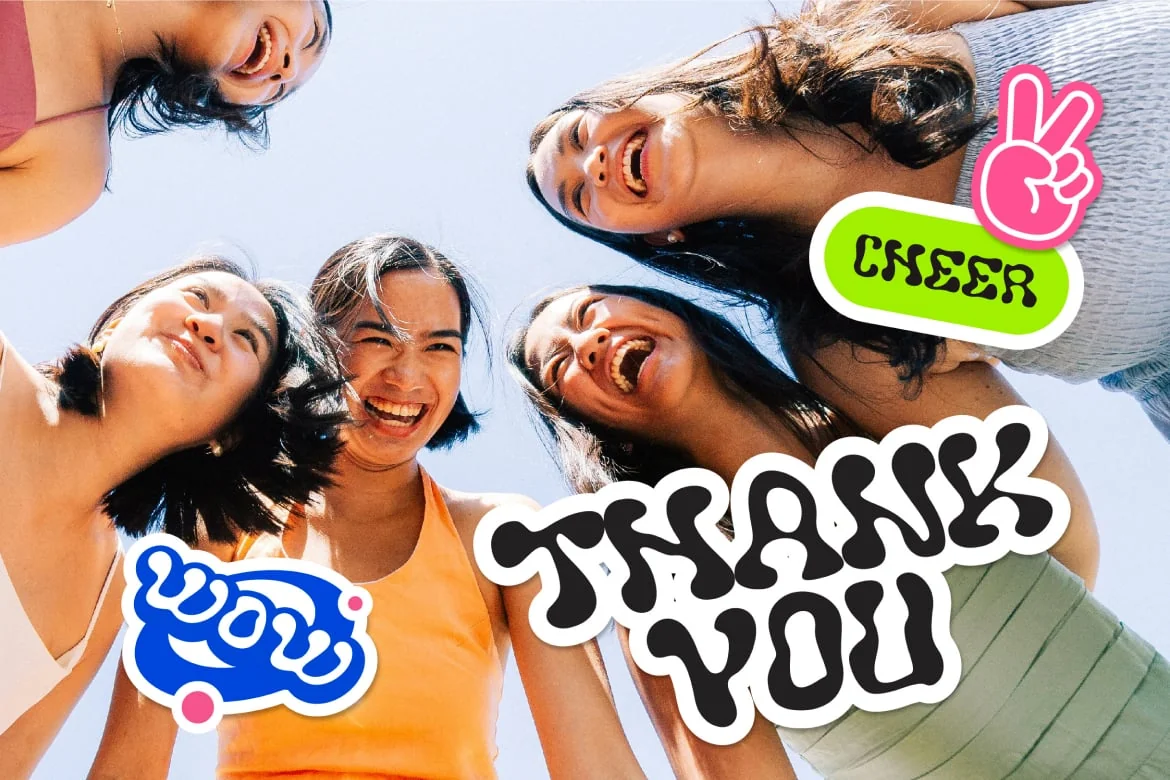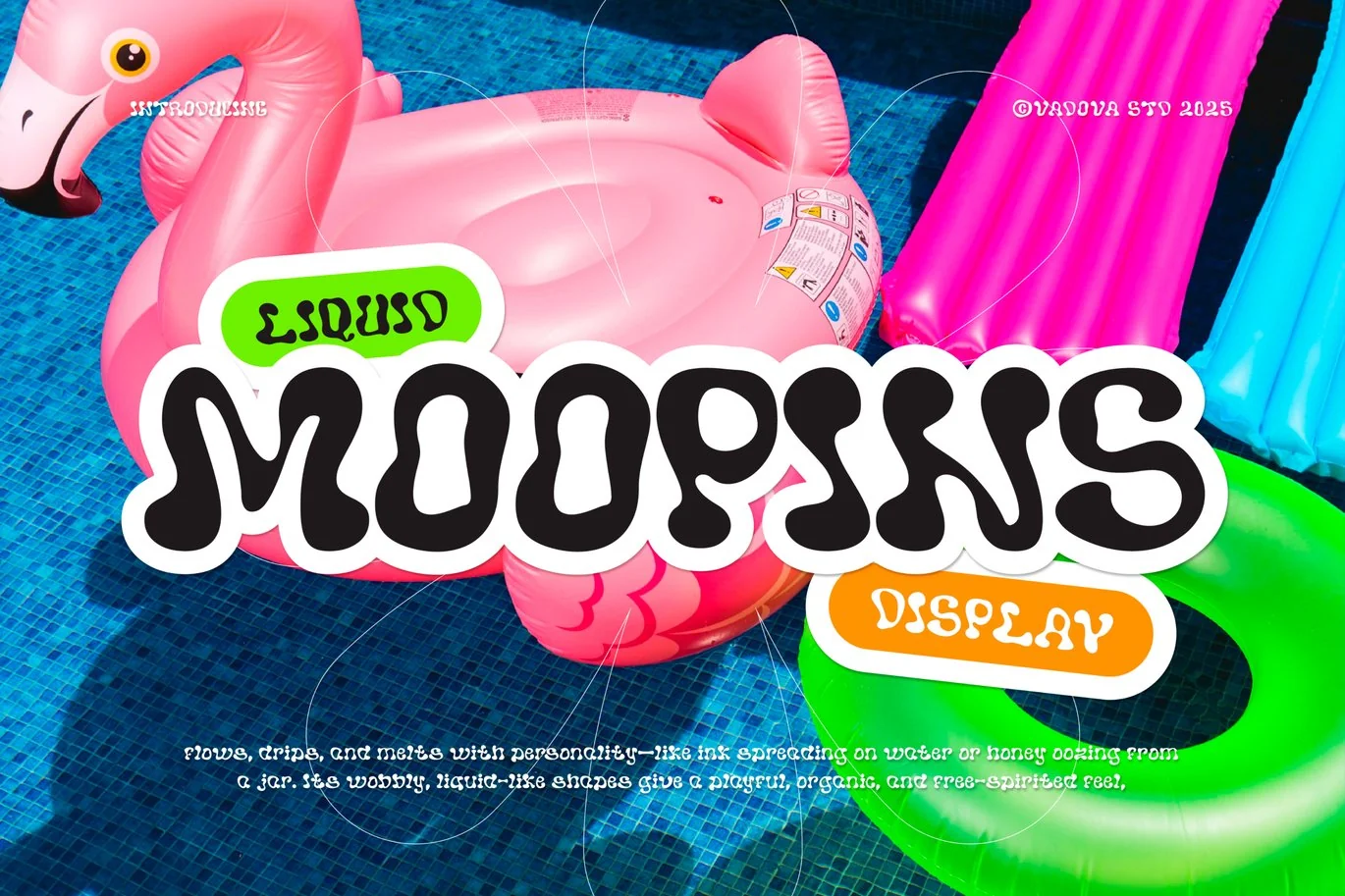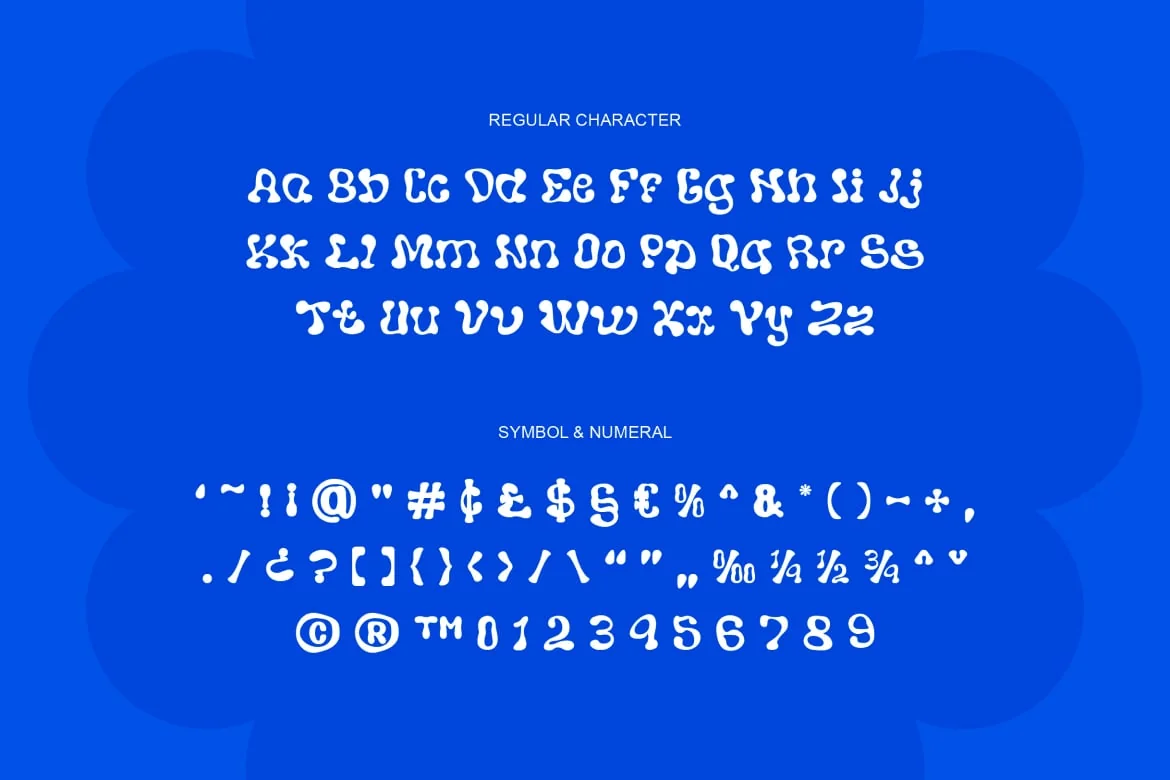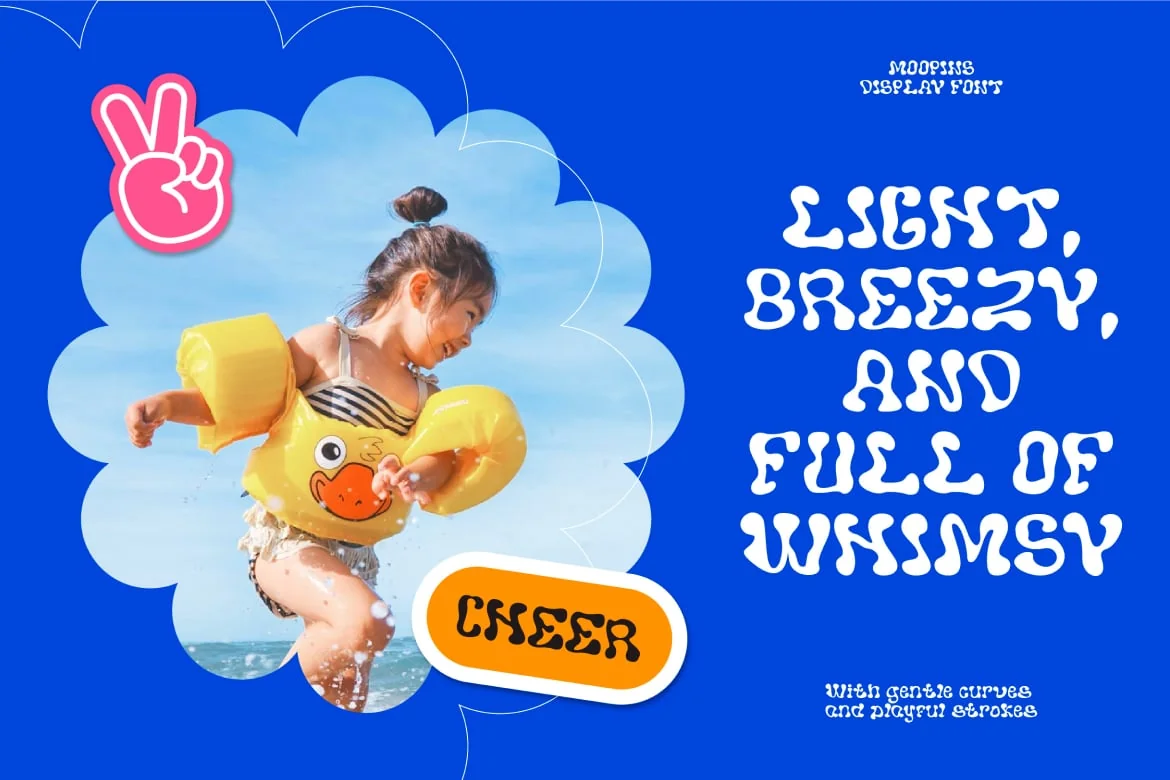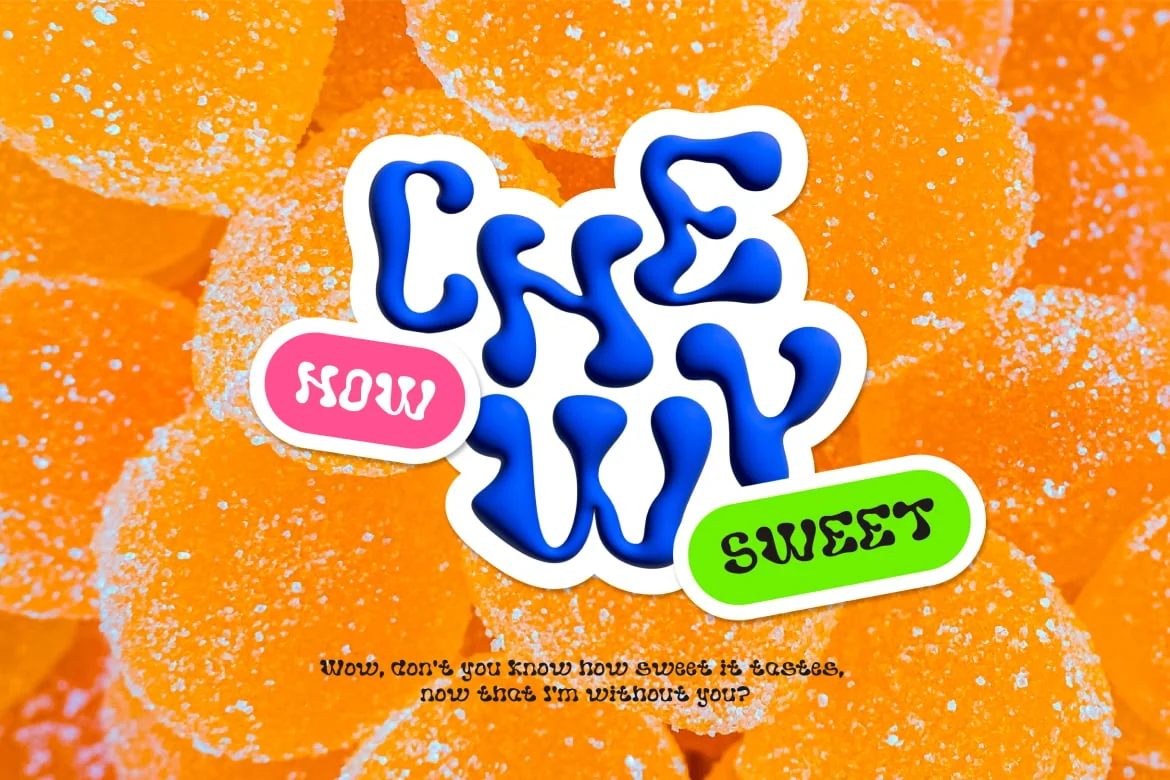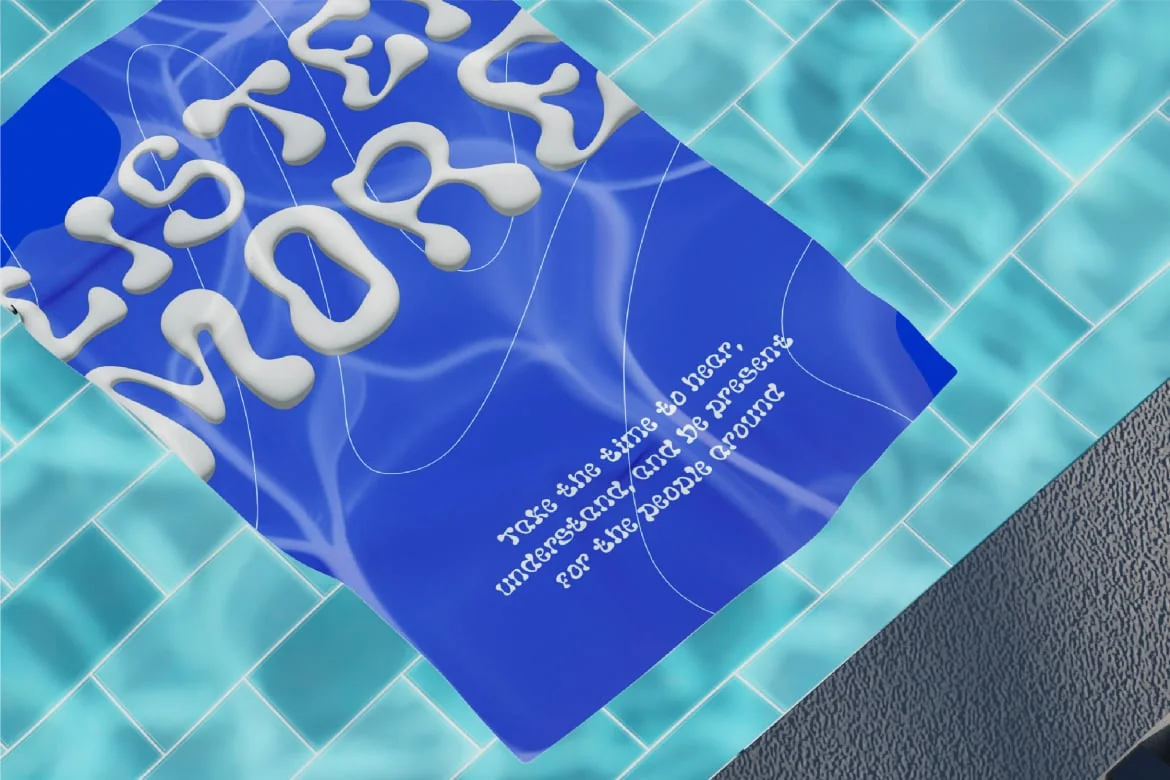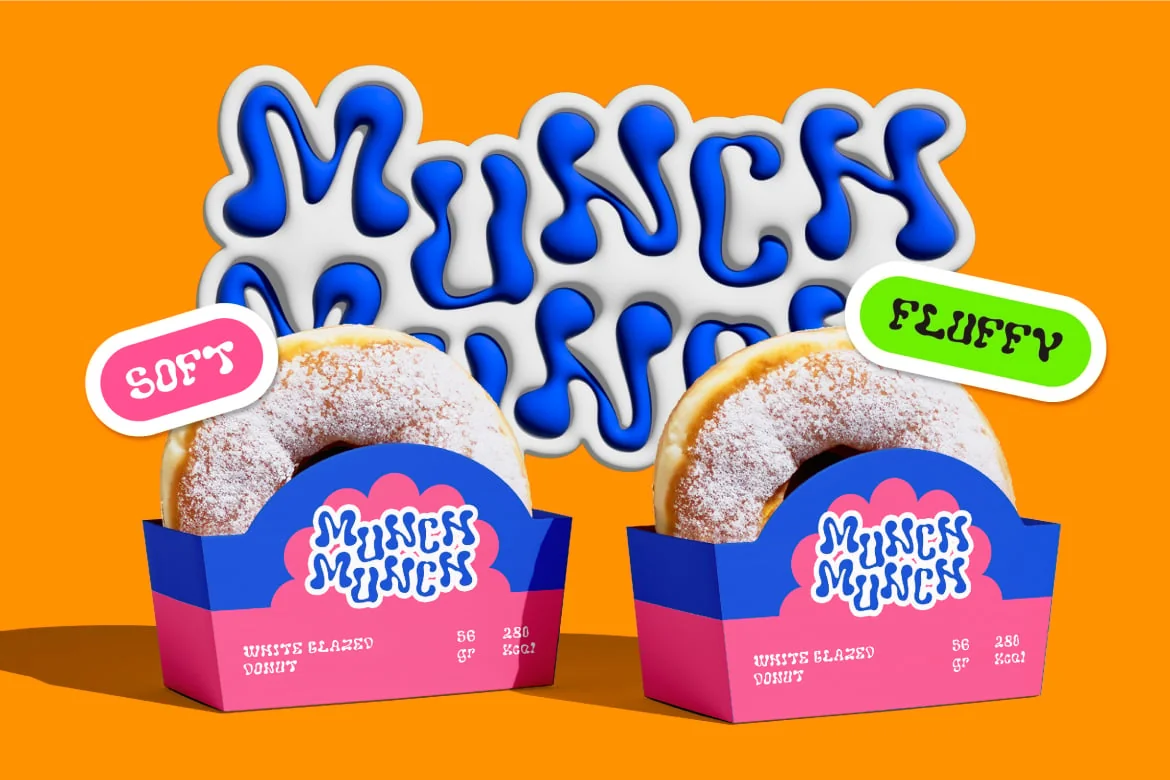
Moopins Creative Font
Elevate your designs with Moopins Creative Font, a playful liquid display typeface that mimics the natural flow of ink spreading on water or honey dripping from a spoon. Its wobbly, organic shapes create a fun and free-spirited aesthetic, making it perfect for creative branding, packaging, posters, and summer-themed designs. The smooth, fluid letterforms give off a lighthearted and energetic vibe, ideal for projects that seek to capture movement, spontaneity, and artistic expression. Whether used for headlines, logos, or eye-catching graphics, Moopins brings a sense of fun and fluidity to any visual composition.